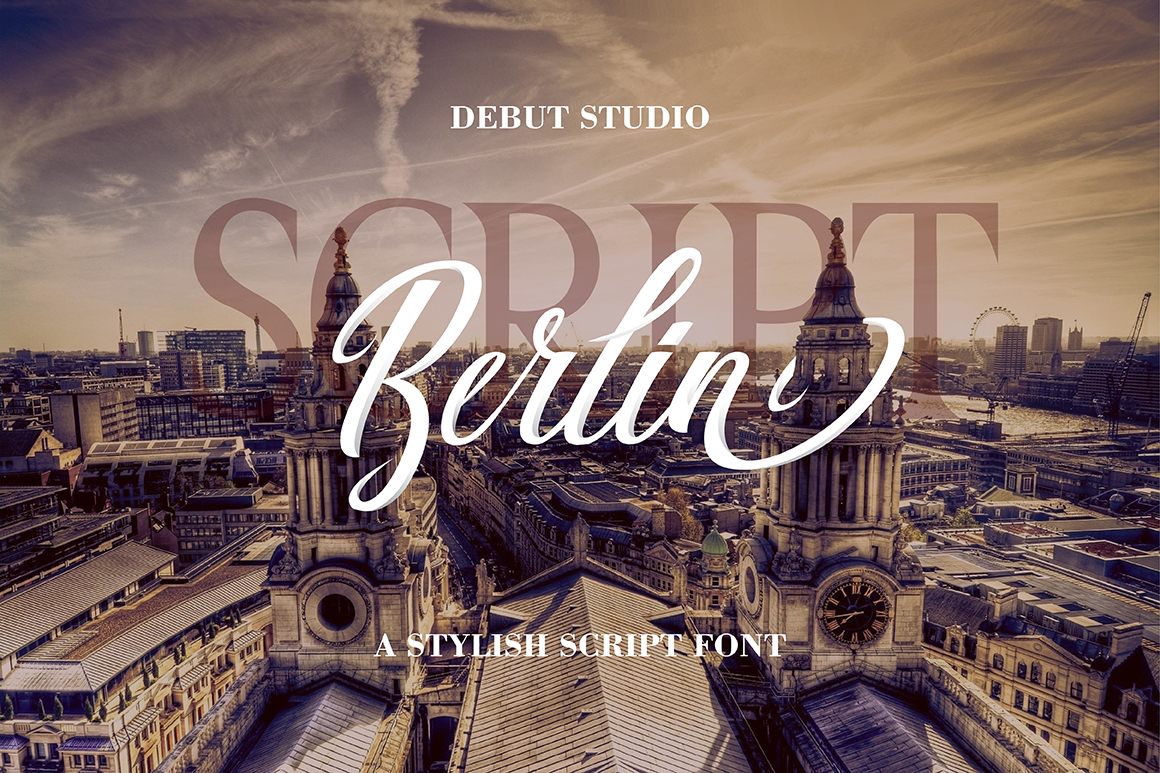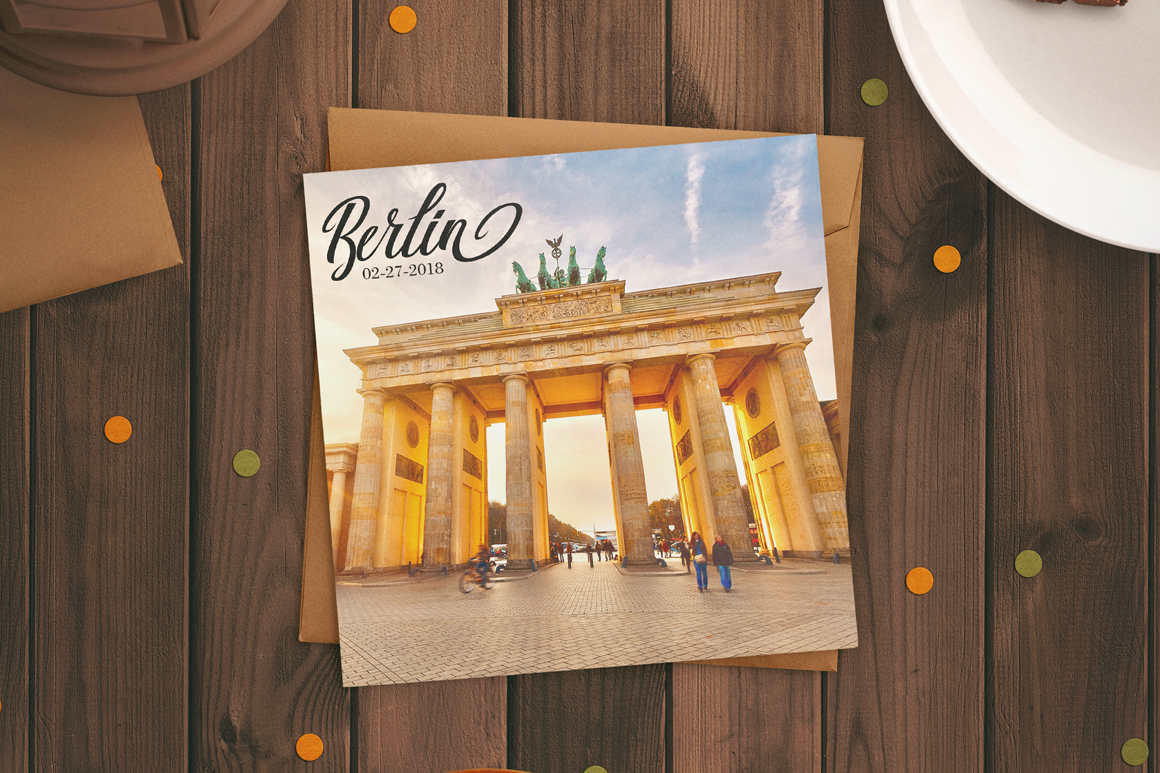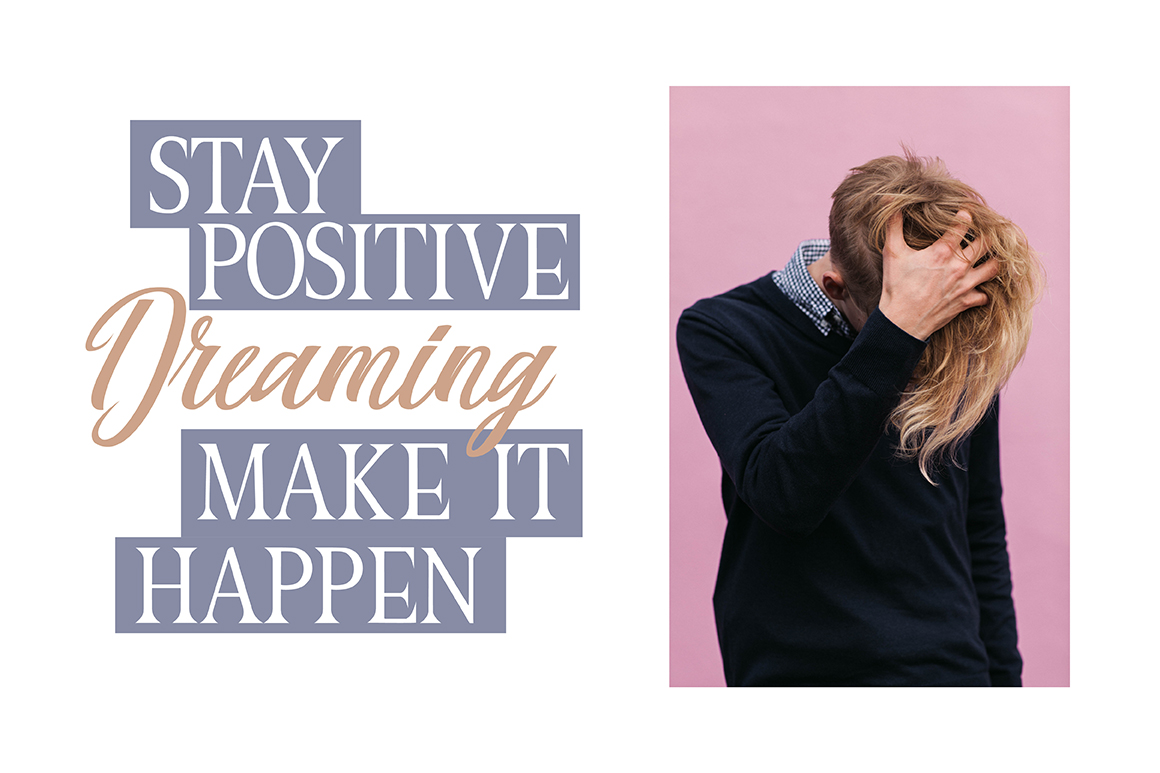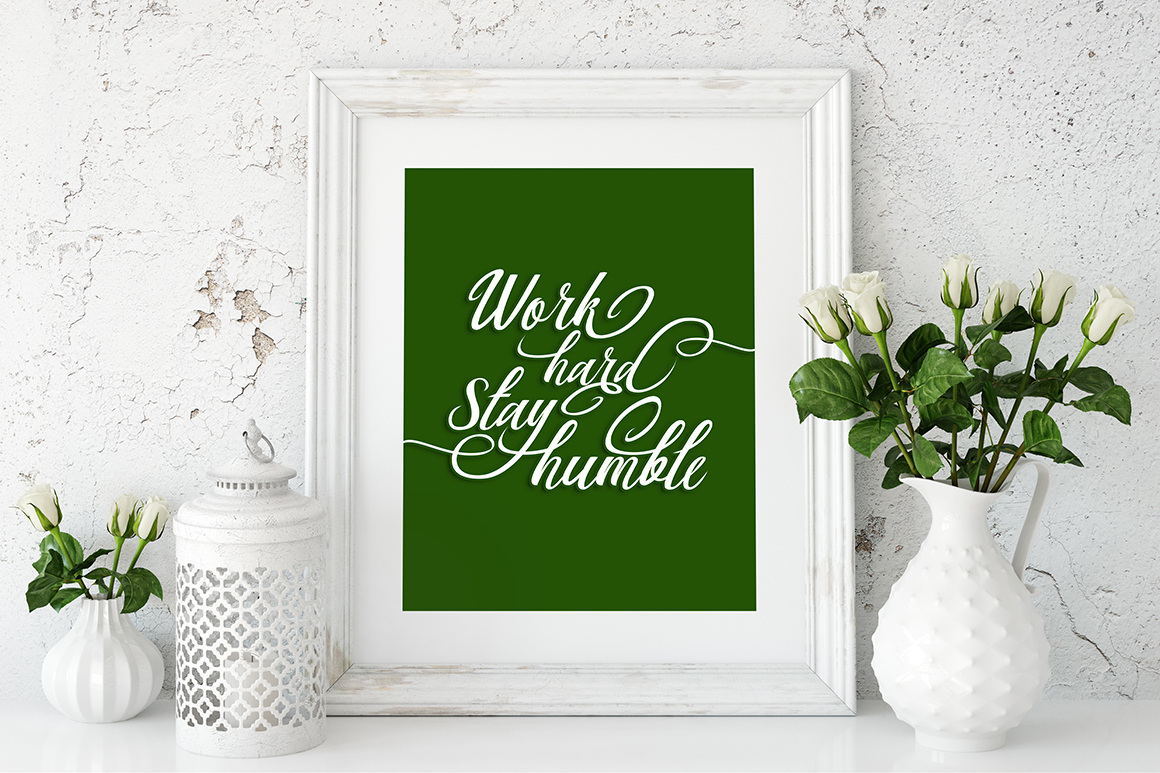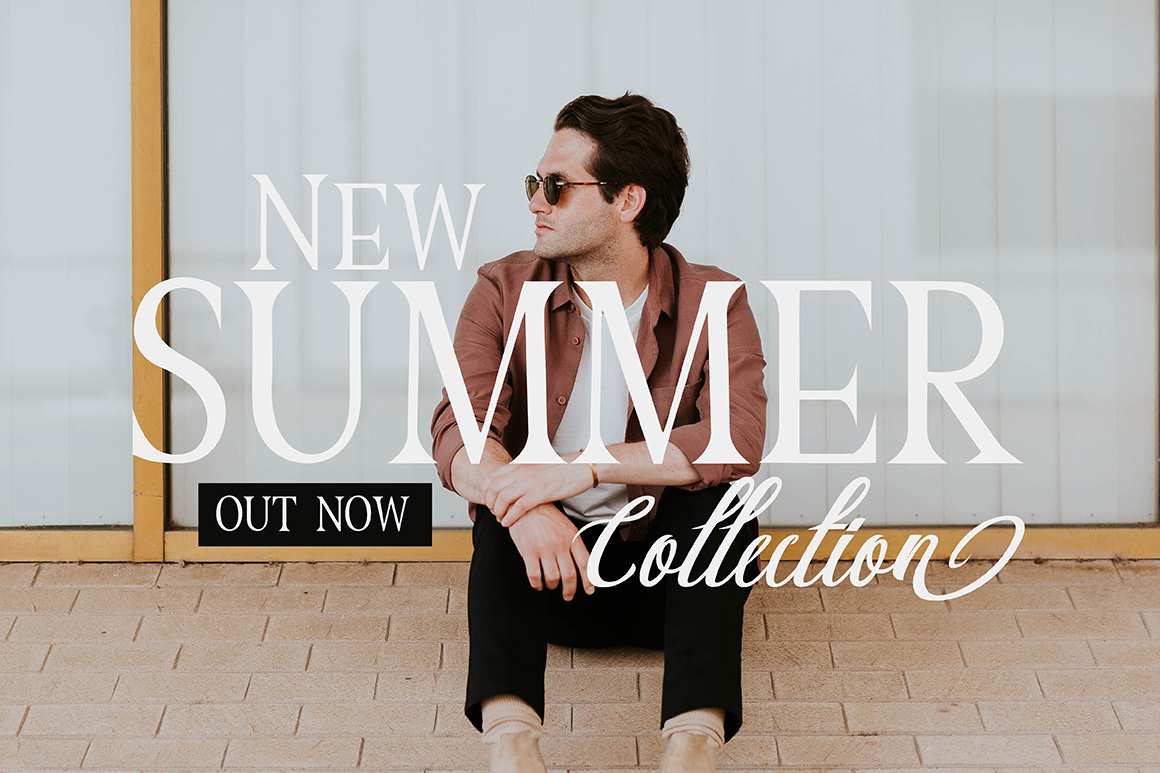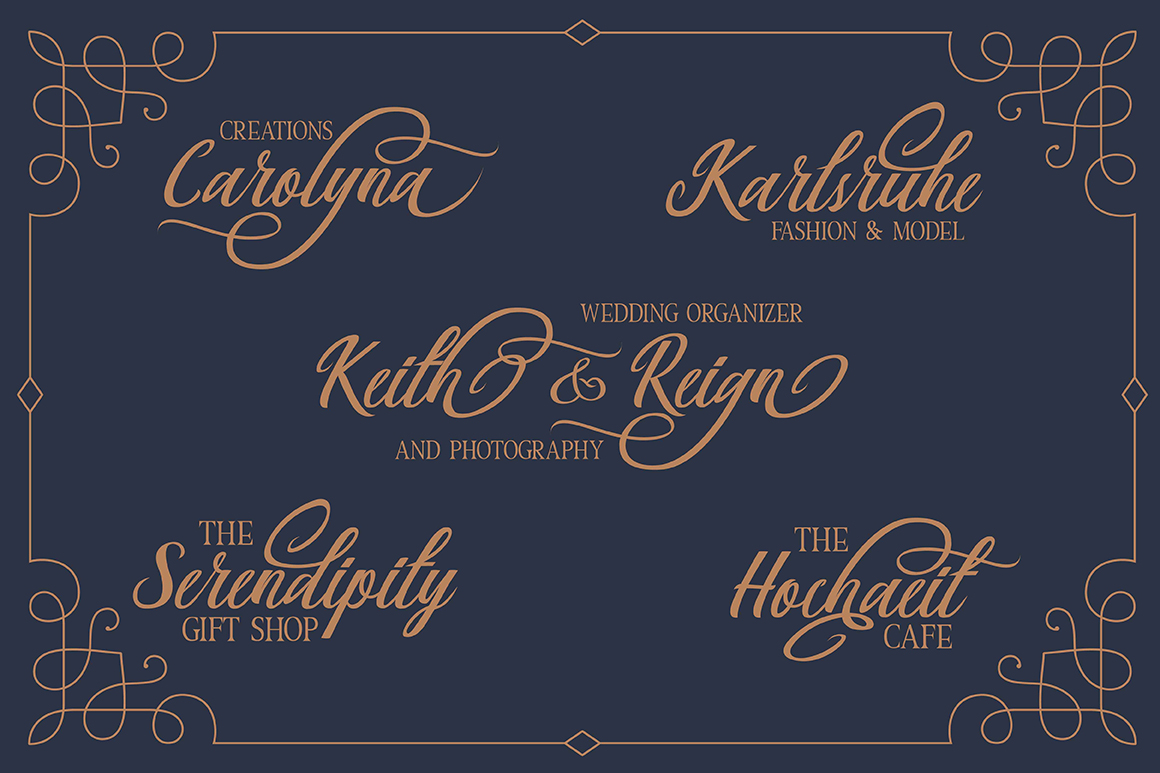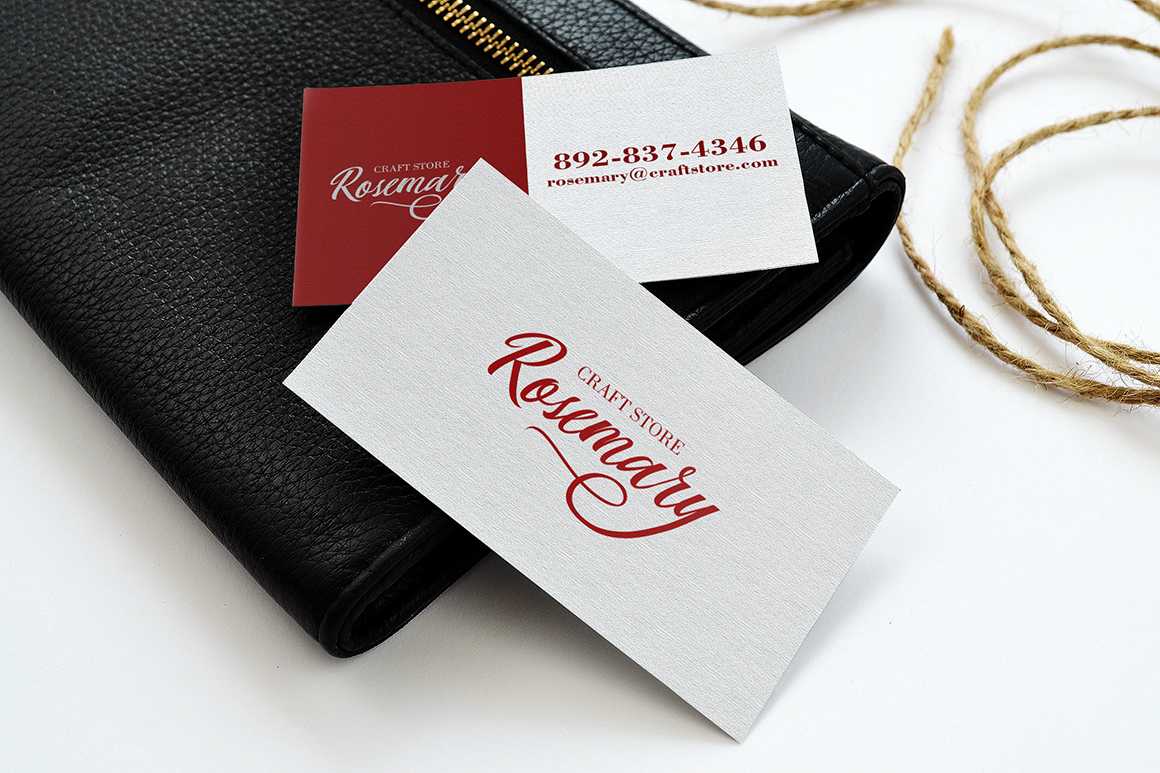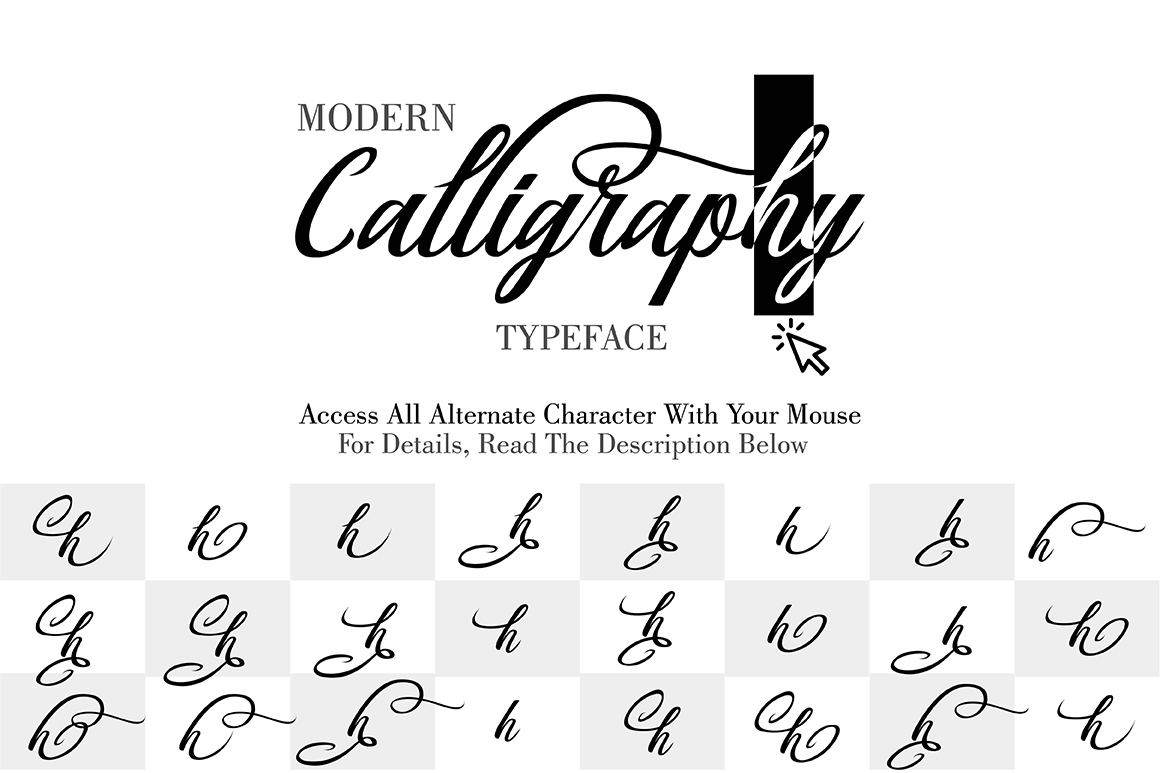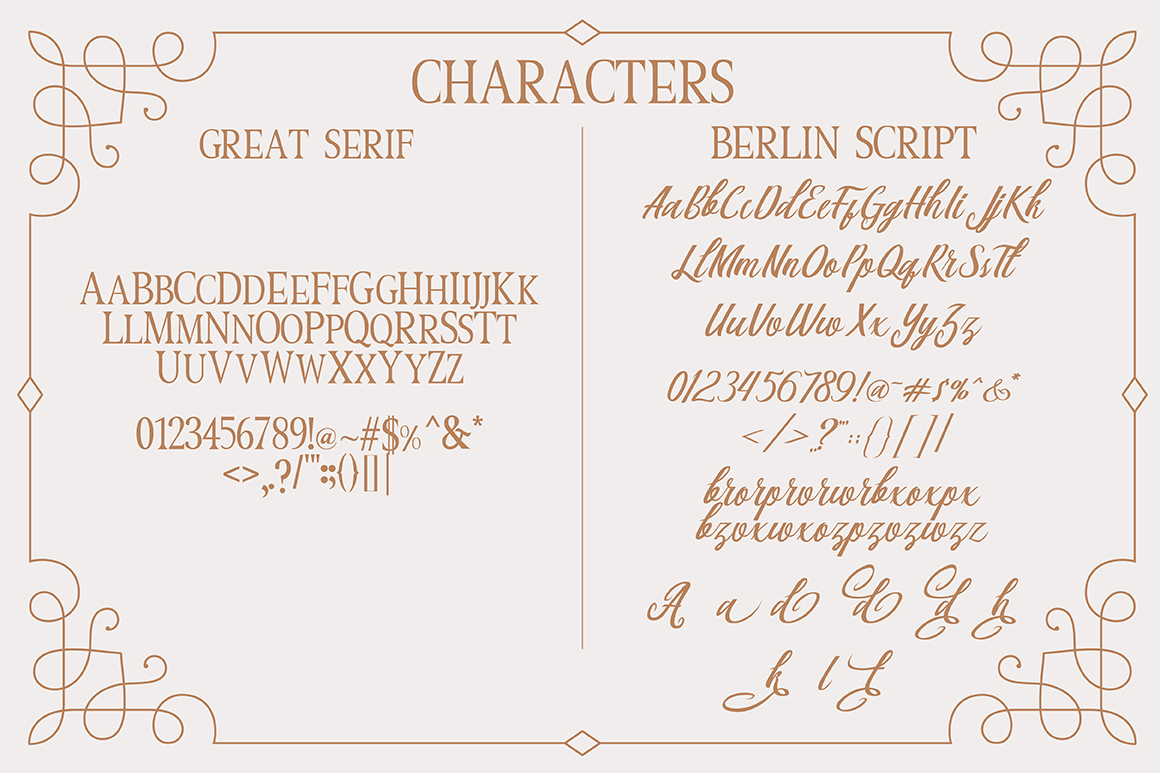
HomeScript FontsBerlin Script Font Script Fonts Berlin Script Font FacebookXPinterestWhatsApp Berlin Script Font Poster 2 Berlin Script Font Poster 3 Berlin Script Font Poster 4 Berlin Script Font Poster 5 Berlin Script Font Poster 6 Berlin Script Font Poster 7 Berlin Script Font Poster 8 Berlin Script Font Poster 9 About Berlin Script Font Berlin Script is a stunning handwritten font and comes with a matching serif font, called Great. DOWNLOAD NOW People also explored Bobalicious Font Indigo Font Amelia Font Freshflower Font Rainy April Font Frozen Font Lovely Curly Font Hello Baby Font Silvr Font 305 0 TagsBerlin Script Font Previous articleCreate Something Today FontNext articleChristina Allie Font LEAVE A REPLY Cancel reply Comment: Please enter your comment! Name:* Please enter your name here Email:* You have entered an incorrect email address! Please enter your email address here Website: Save my name, email, and website in this browser for the next time I comment. Personal Use Free Just Love Personal Use Free Read more about this font Colombia Personal Use Free Read more about this font Jilliant Personal Use Free Read more about this font Sweety Blue Personal Use Free Read more about this font BLOG Exploring Font Trends Shaping Communication in the Digital Era Fonts, like all design elements, are subject to trends. They play a crucial role in communicating a brand's personality,... How to Install and Use Fonts on Windows, macOS, and Web Projects Best Fonts for T-Shirt Design – Top 2025 Picks Transform Your Website: Elevate Your Typography with 7 Best Web Font Generators